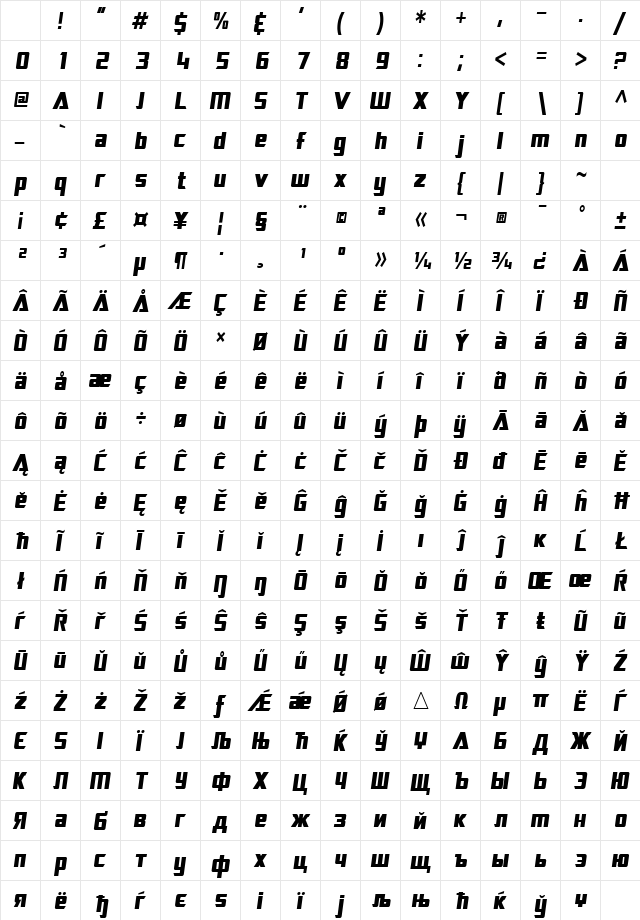
Complete SF TransRobotics Condensed Oblique glyph index. Displaying only characters natively supported by SF TransRobotics Condensed Oblique font.
SF TransRobotics Condensed is a composed and adaptable typeface that performs quietly and consistently across a wide range of design contexts. The slanted form adds forward momentum and visual energy. Its narrow stance lets it pack a punch even in space-constrained designs.
Pro Tip: Use SF TransRobotics Condensed for emphasis, pull quotes, and subheadings where its slanted energy can add rhythm to the layout.